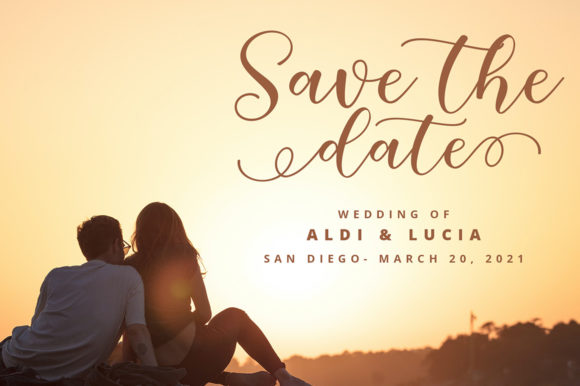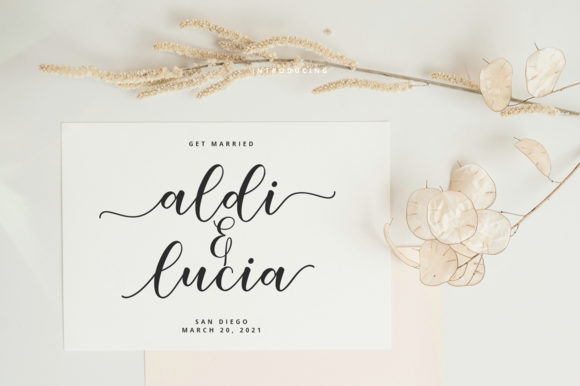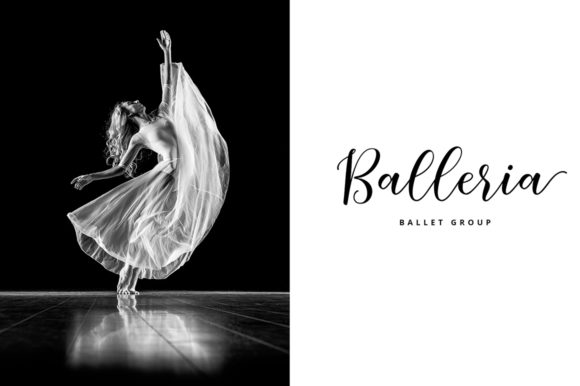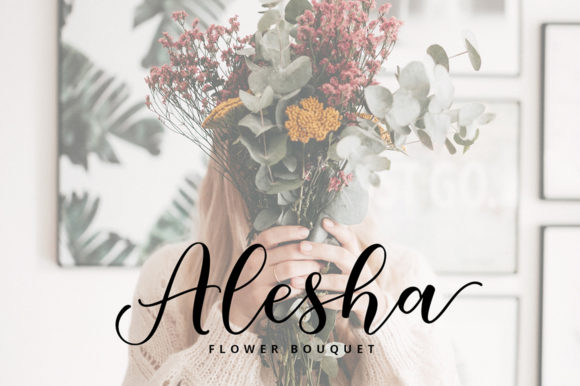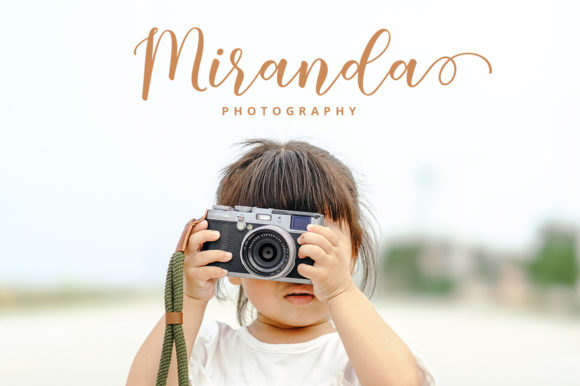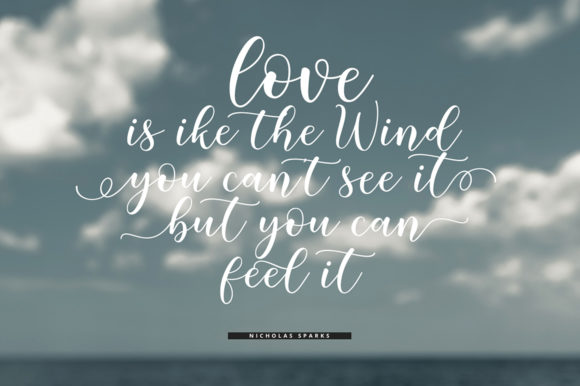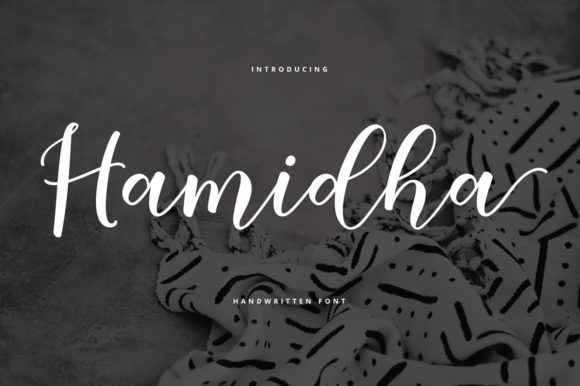
Introducing Hamidha Font: Elevate Your Designs with Elegance
In the world of typography, a font can make or break a design. For designers and crafters looking to add a touch of sophistication and elegance to their creations, Hamidha Font is an exceptional choice. This dazzling script font is meticulously crafted with high attention to detail, making it a valuable asset to any font library.
The Beauty of Hamidha Font
Hamidha Font stands out with its neat and highly detailed design. Its script style exudes a sense of luxury and refinement, perfect for a wide range of design projects. Whether you’re working on a branding project, packaging, or any other creative endeavor, Hamidha Font has the potential to elevate your work and make it more visually appealing.
One of the key features that make Hamidha Font highly accessible and user-friendly is its PUA (Private Use Area) encoding. This means that users can easily access all glyphs and swashes without any hassle. The PUA encoding allows for a broader range of characters and ligatures, providing designers with more creative freedom and flexibility in their designs.
Versatility Across Design Projects
The versatility of Hamidha Font is one of its most significant advantages. Regardless of the topic or theme of your project, this font can adapt and complement your design. From wedding invitations and event branding to product packaging and digital content, Hamidha Font can add a touch of elegance and sophistication that sets your work apart.
Why Choose Hamidha Font?
• Highly Detailed Design: Hamidha Font is crafted with precision, ensuring that every letter and swash is of high quality.
• PUA Encoded: Easy access to all glyphs and swashes for more creative control.
• Versatile: Suitable for a wide range of design projects, from digital to print.
• Elegant and Sophisticated: Adds a touch of luxury to any design.
Tips for Using Hamidha Font
To make the most out of Hamidha Font, consider the following tips:
• Pair it with Complementary Fonts: Use Hamidha Font as a headline font and pair it with a simpler font for body text to create contrast and visual interest.
• Experiment with Swashes: Take advantage of the swashes and glyphs available with PUA encoding to add unique touches to your design.
• Consider the Color Scheme: Choose a color scheme that complements the elegance of Hamidha Font, such as soft pastels or metallic tones.
Hamidha Font is a stunning addition to any designer’s font library. Its elegant script style, detailed craftsmanship, and PUA encoding make it a versatile and valuable resource. Whether you’re looking to add a touch of sophistication to a branding project, create beautiful wedding invitations, or simply enhance your digital content, Hamidha Font is an excellent choice. Explore the possibilities with Hamidha Font and elevate your designs to new heights of elegance and creativity.
With Hamidha Font, you’re not just adding a font to your library; you’re unlocking a world of creative possibilities. Its combination of elegance, versatility, and ease of use makes it a must-have for designers and crafters looking to make a statement with their work.